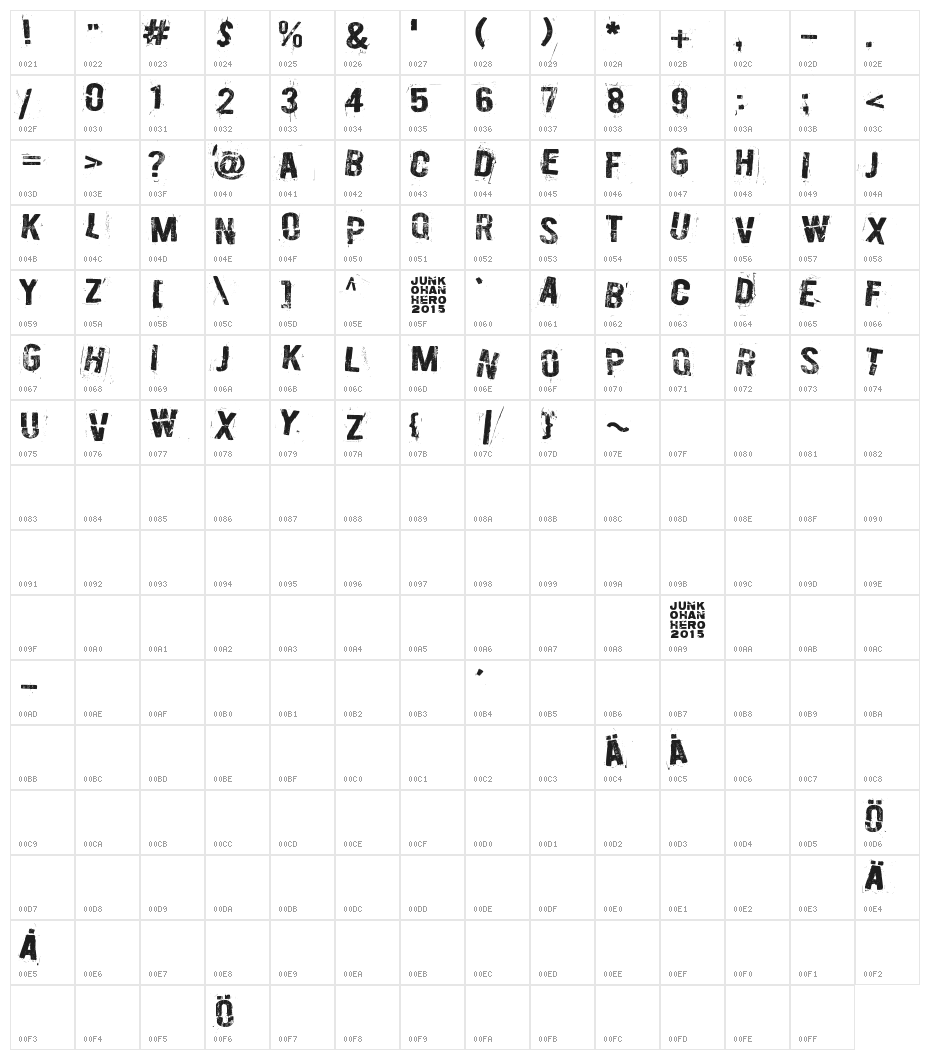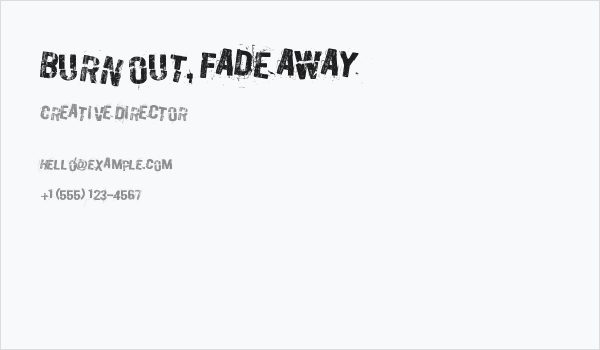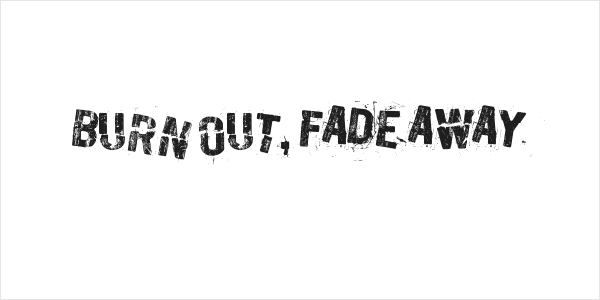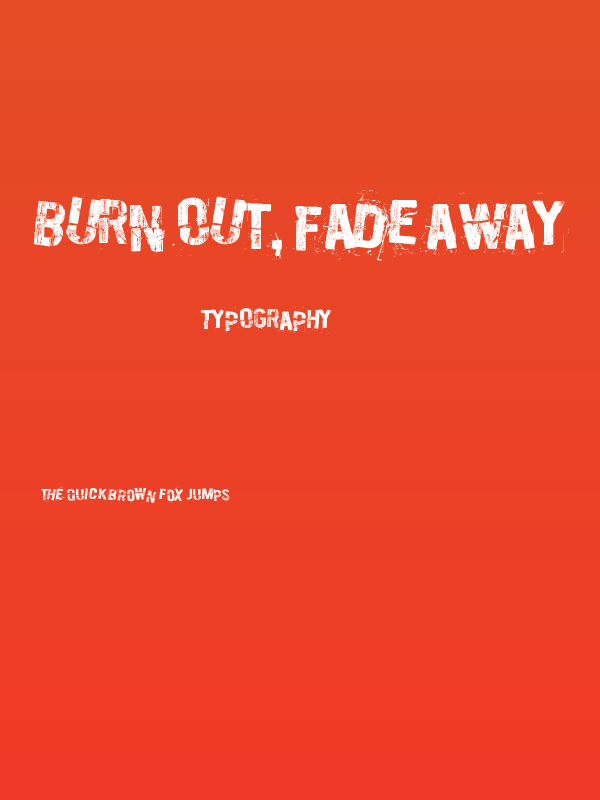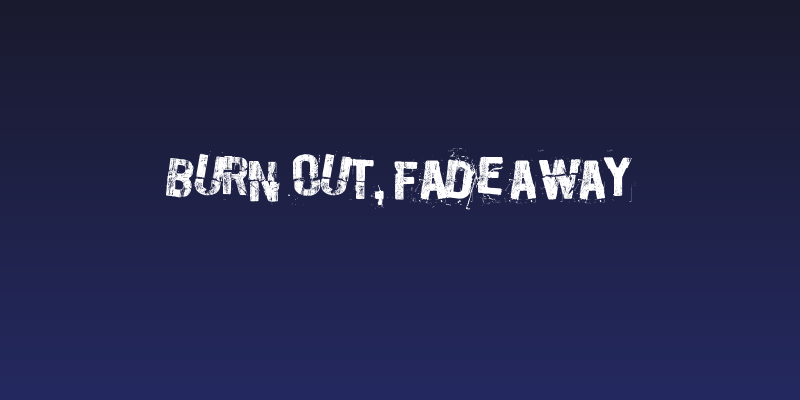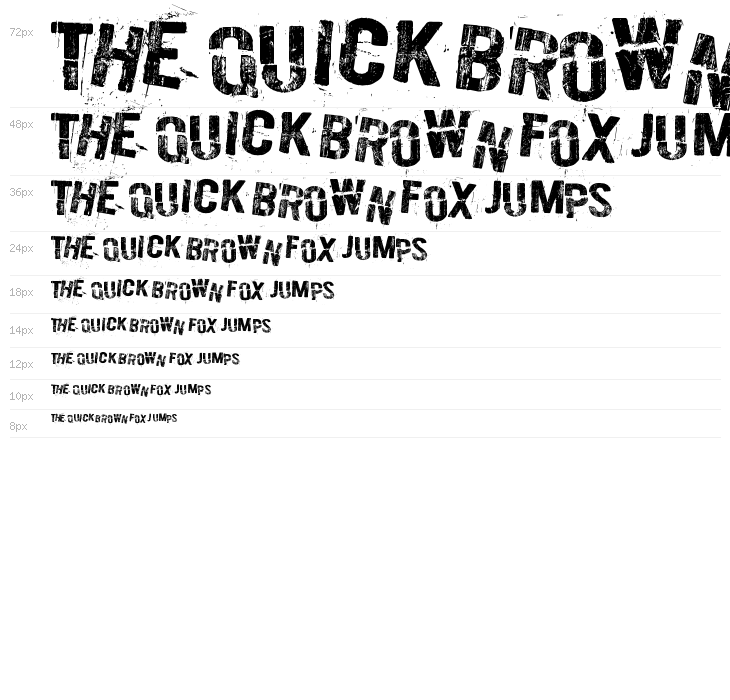
Burn out, fade away Font
Burn out, fade away Description
This font features a distressed, grunge style with a worn-out appearance, giving it a rugged and edgy look. The characters are bold and uppercase, with a rough texture that suggests a sense of decay or erosion. The irregularities in the letterforms add a dynamic and chaotic feel, making it suitable for designs that aim to convey a sense of rebellion or nonconformity. The font's unique style is reminiscent of urban street art or distressed print, making it stand out in any creative project.
| Overall Style | Grunge, Urban, Edgy |
| Proposed Projects | Ideal for album covers, posters, streetwear branding, and any project seeking an edgy, rebellious aesthetic. |